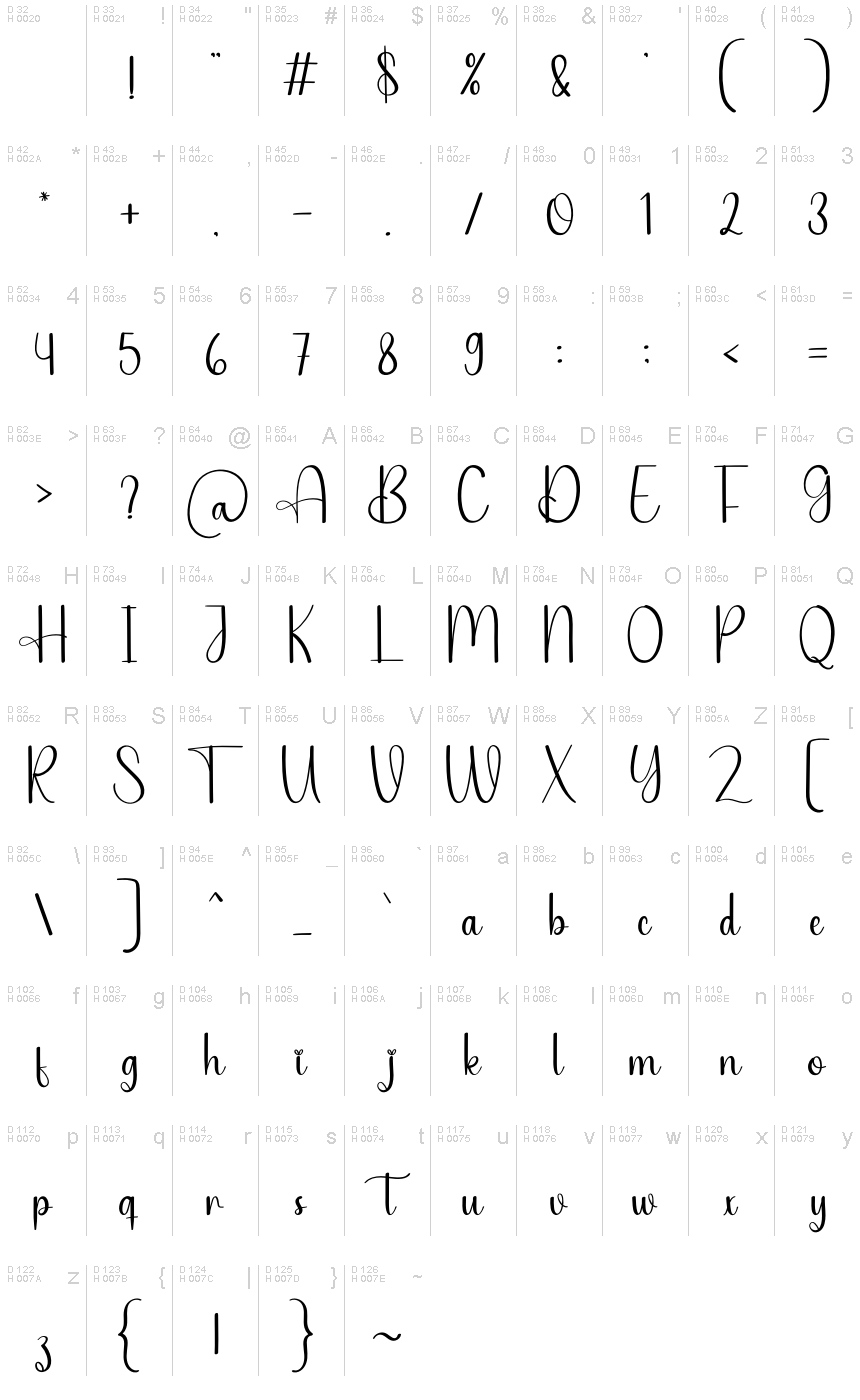
Shintia
Shintia, crafted by Scratchones, is a font that captures the elegance of calligraphy with a modern twist. Its flowing lines and graceful curves bring a touch of personal flair to every character, while playful heart embellishments add a whimsical charm. This font exudes warmth and personality, making it perfect for invitations, branding, and any project that calls for a handcrafted feel.
Its aesthetic appeal lies in the balance between its artistic strokes and legibility, ensuring that while it stands out, it remains easy to read. Shintia's style lends itself beautifully to creative endeavors where a touch of romance or individuality is desired. From wedding stationery to boutique logos or even personalized gifts, this font transforms simple text into something truly special.